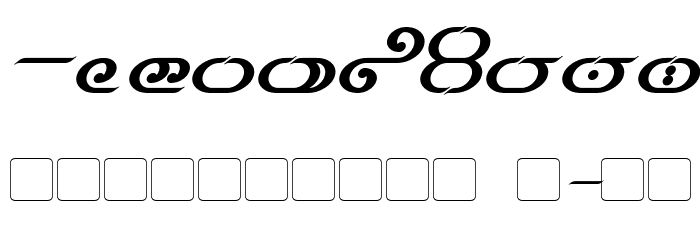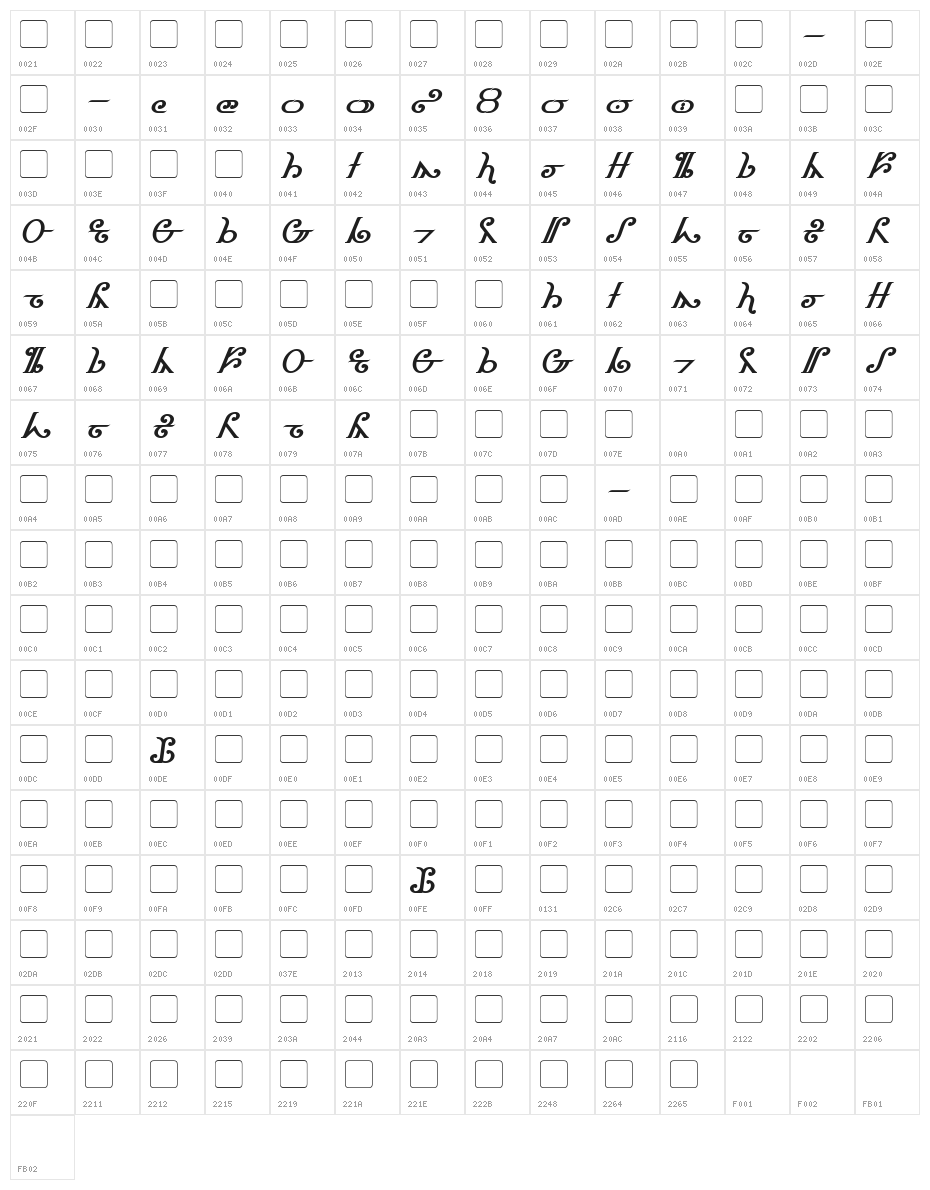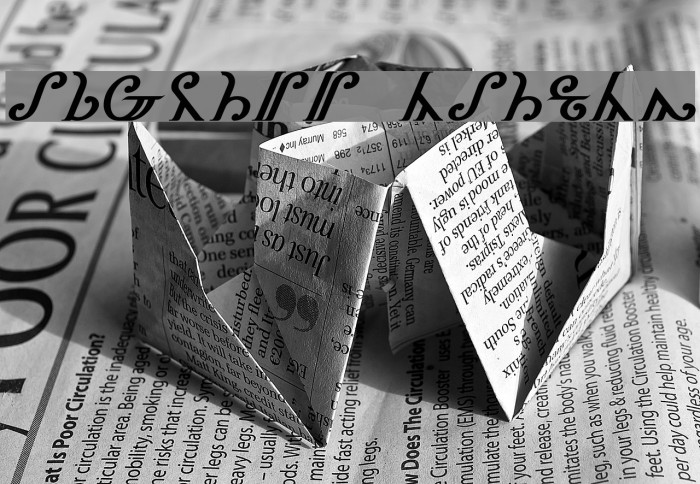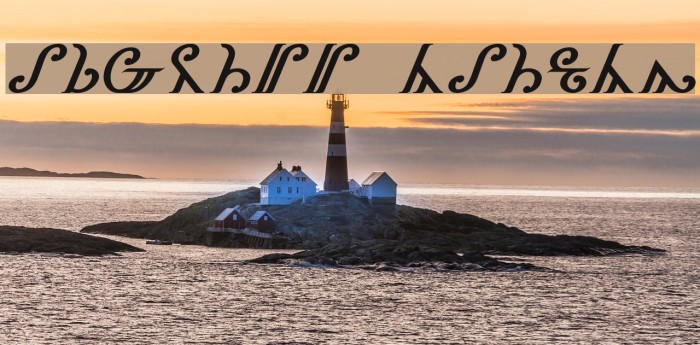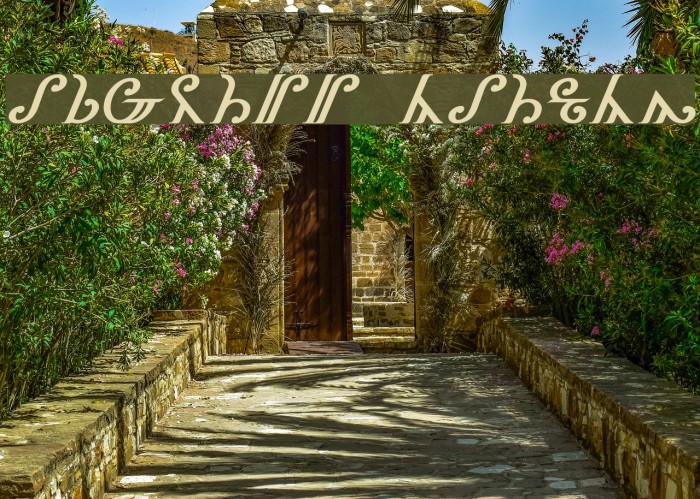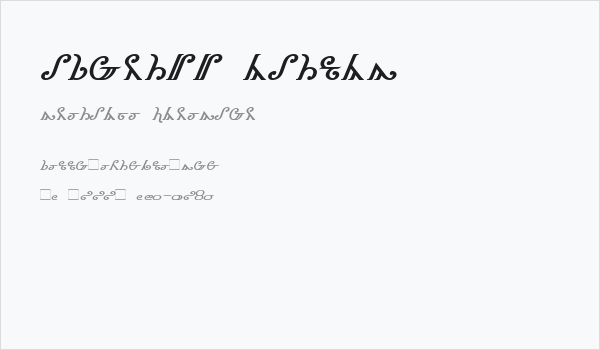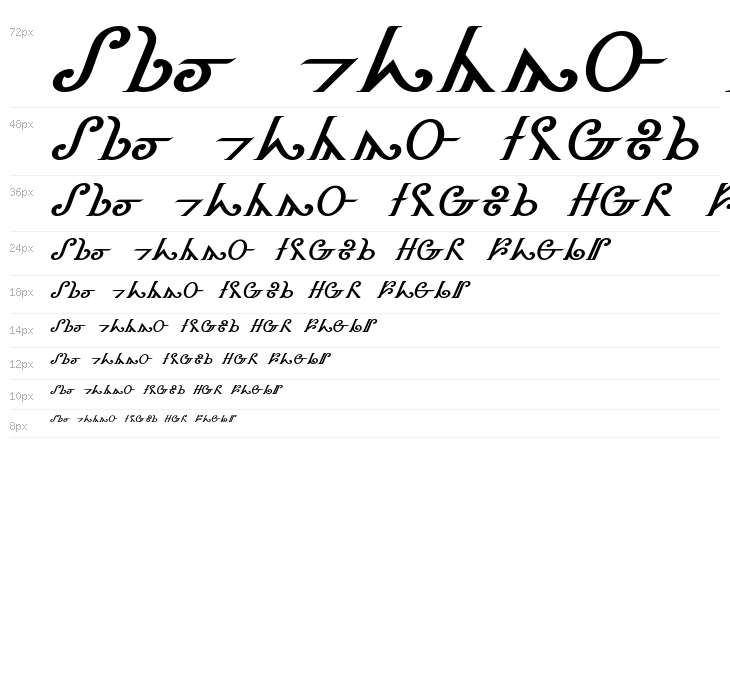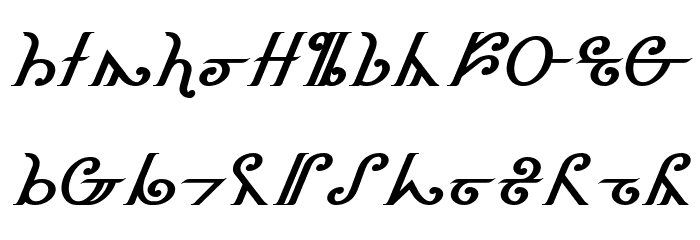
Thorass Italic Font
Thorass Italic Description
This font features a unique and decorative style with a strong emphasis on curves and flourishes. The characters are italicized, giving them a dynamic and flowing appearance. Each letter is crafted with intricate details, making it stand out with a sense of elegance and sophistication. The uppercase letters are bold and prominent, while the lowercase letters maintain a consistent style, enhancing readability. The numbers and special characters are designed to match the overall aesthetic, ensuring a cohesive look across all text. This font is ideal for projects that require a touch of creativity and flair.
| Use Case | Logos, Headlines, Creative design |
| Proposed Projects | Ideal for invitations, branding, logos, and creative design projects. |